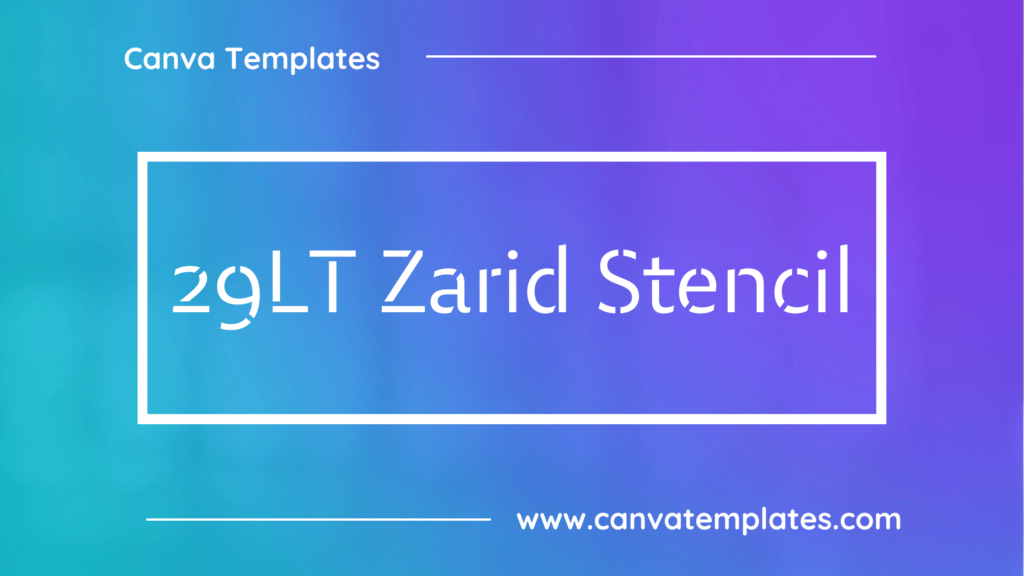
Great graphic design is powered by great font selection. But picking great fonts is a challenge most people. Luckily, Canva has made adding great fonts to your designs much easier. In this tutorial, our team of design experts will cover the best stencil fonts in Canva.
What Are Stencil Fonts?
Stencil fonts typically share the following characteristics:
- Blocky and bold: Stencil fonts are designed to be bold and blocky, with strong, heavy lines that create a stencil-like effect.
- No curves: Stencil fonts typically do not have any curved or rounded lines, as these would be difficult to cut out with a stencil.
- Minimalist: Stencil fonts are typically minimalist, with simple, geometric letterforms that are easy to cut out and use as a stencil.
- Limited detail: Stencil fonts usually have limited detail, with no intricate or fine lines that would be difficult to cut out with a stencil.
- Limited variation: Stencil fonts tend to have a limited range of variation in terms of weight and style, as they are intended to be consistent and easily recognizable across different media.
- Military-inspired: Stencil fonts are often associated with the military, as they were commonly used to stencil letters and numbers onto equipment and vehicles.
- Limited use: Stencil fonts are not typically used for body copy or large blocks of text, but rather for headings, titles, and other short bursts of text where their impact can be fully appreciated. They are commonly used in graphic design, street art, and other forms of visual communication that require a bold, eye-catching style.
Best Canva Stencil Fonts
1. TT Mussels Stencil
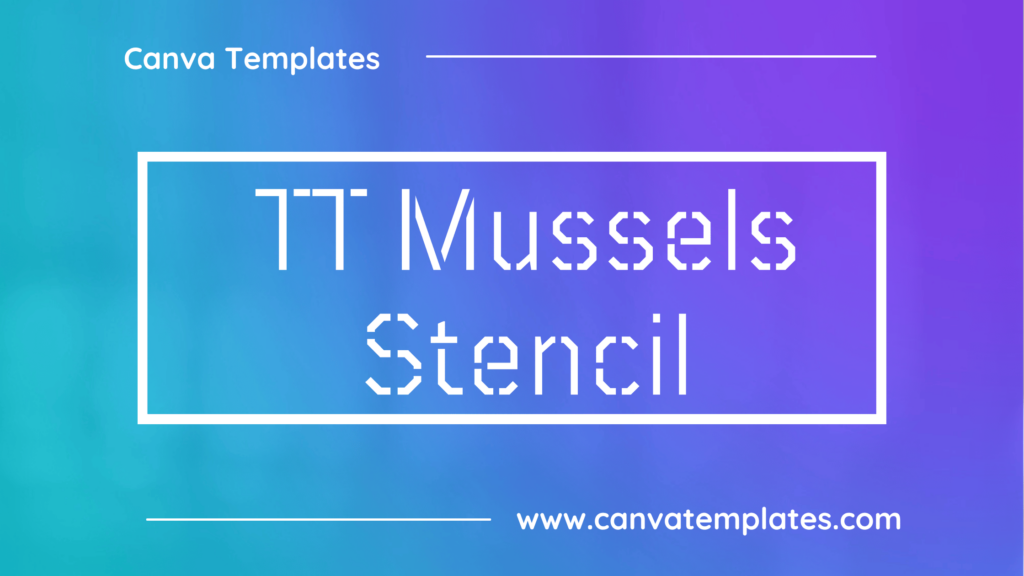
TT Mussels Stencil is a stencil typeface designed by Ivan Gladkikh and Pavel Emelyanov of the TypeType foundry. The font is characterized by its unique, organic stencil design that features rounded edges and soft curves. It has a modern, contemporary feel and is available in both regular and bold weights.
2. Targo Stencil
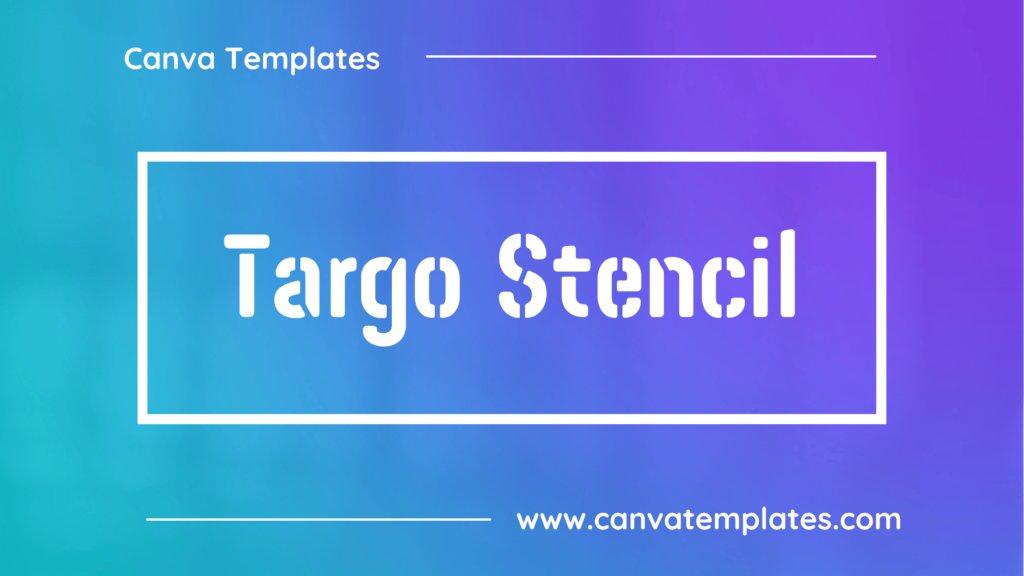
Targo Stencil is a font that features a strong and bold stencil design. The letters are constructed with large and simple shapes, and the stencil cutouts add a modern and edgy feel to the font. It has a geometric and industrial appearance, making it ideal for use in graphic design and branding projects that require a bold and impactful display font.
3. Stenciliqo Extruded
Stenciliqo Extruded is a font with a stencil style that features a 3D extruded effect. The font has a strong, bold appearance with a futuristic edge, and the letters are separated into distinct shapes that give it a structured, technical look. The extruded effect creates depth and dimension, making the font stand out and appear almost sculptural. It is a great font for designs that need a bold, modern look, such as logos, headlines, posters, and branding materials.
4. Stencil
Stencil is a font that features a clean, bold, and structured design with open spaces or “counters” that are usually filled with color or texture. Stencil is characterized by its use of breaks in the strokes of the letters, which create the appearance of stenciling.
5. Sirin Stencil
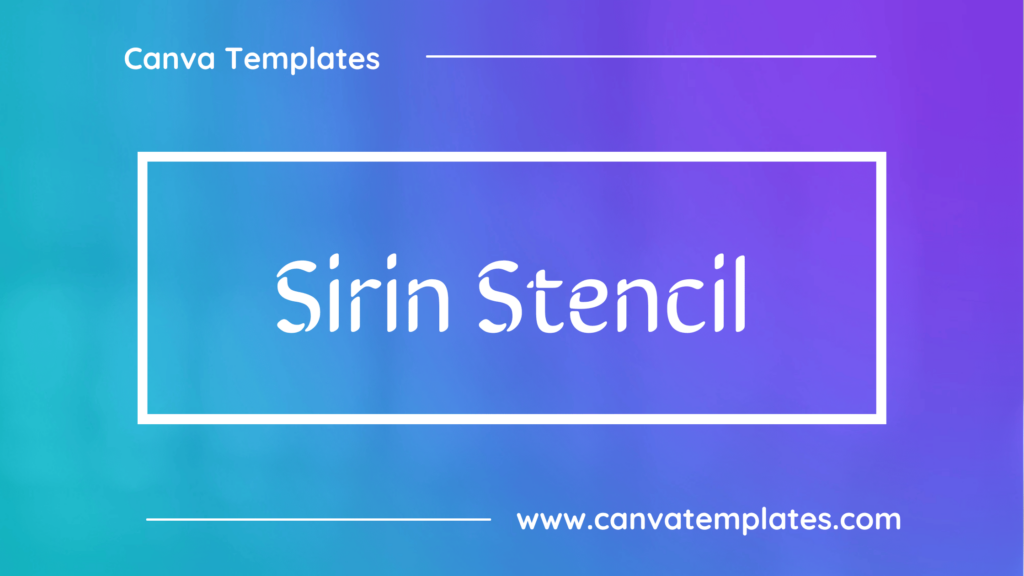
Sirin Stencil is a modern stencil font designed by Oleksandr Parkhomovskyy. It features geometric and condensed letterforms with rounded corners, and includes uppercase and lowercase letters, as well as numbers and some special characters. The stencil design gives it a unique and contemporary look, while the rounded corners soften its appearance.
6. Organic Stencil
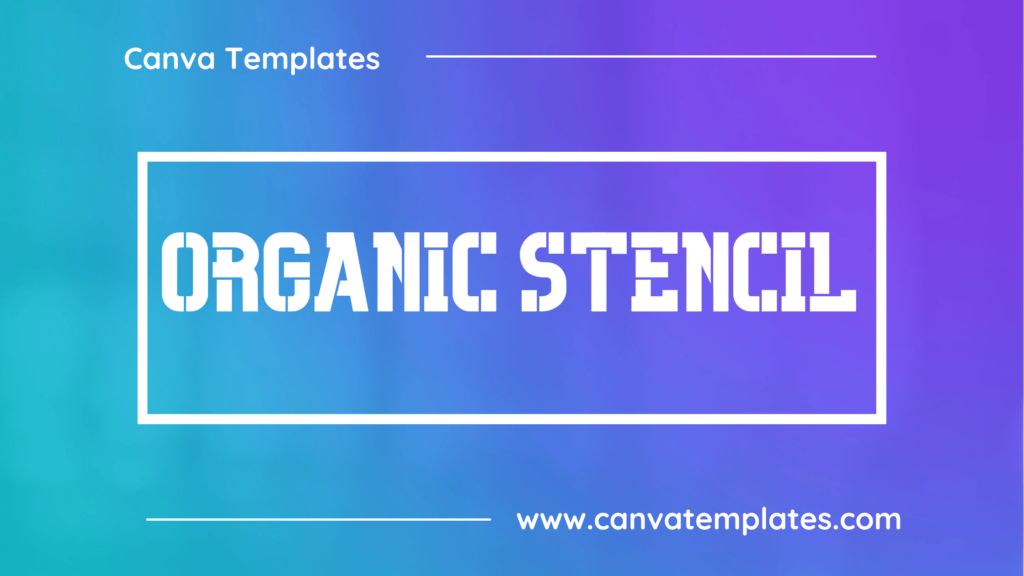
Organic Stencil is a decorative stencil font with a handmade feel. The letters are irregular in shape and feature a distressed texture, giving the font a rustic and vintage look. It is suitable for use in design projects that require a natural and organic feel.
7. Gyanko Stencil
Gyanko Stencil is a Japanese-inspired stencil font designed by Ryoichi Tsunekawa. The font features a bold, geometric style with sharp angles and stenciled cutouts that give it a distinctive and modern look. The font is available in three weights and includes multilingual support for various languages including Japanese, Cyrillic, and Greek.
8. Giaza Stencil
Giaza Stencil is a typeface that features a stencil design with a modern and contemporary look. It has sharp and clean edges with a strong geometric structure. The font is available in multiple weights and is suitable for branding, editorial, and display use.
9. Casa Stencil
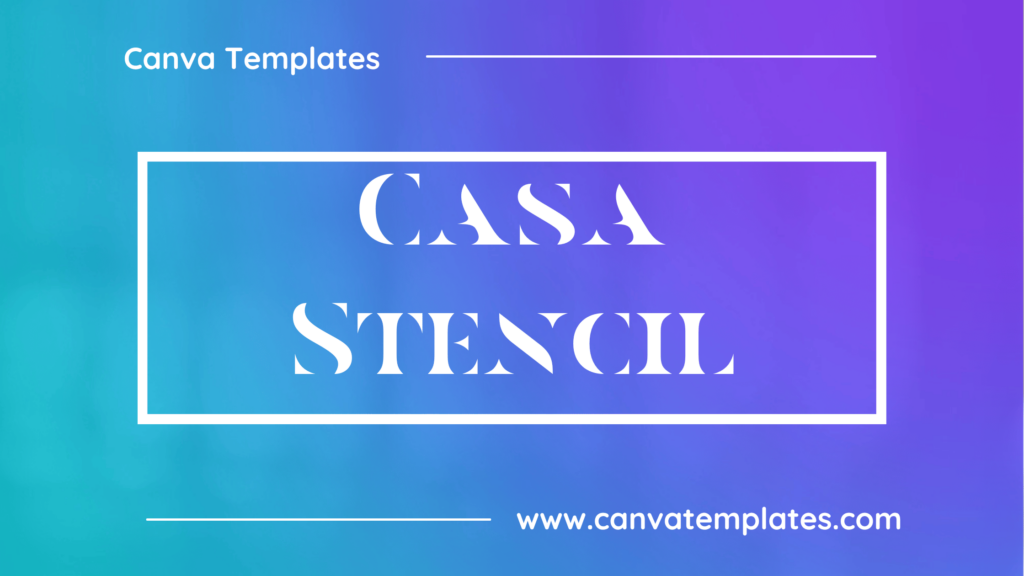
Casa Stencil is a modern, minimalistic stencil font designed by the Arabic type designer Ali Almasri. It features sharp and clean lines, with a geometric structure that gives it a contemporary feel. The font is ideal for use in headlines, titles, and branding materials. It supports multiple languages, making it a versatile choice for various design projects.
Conclusion